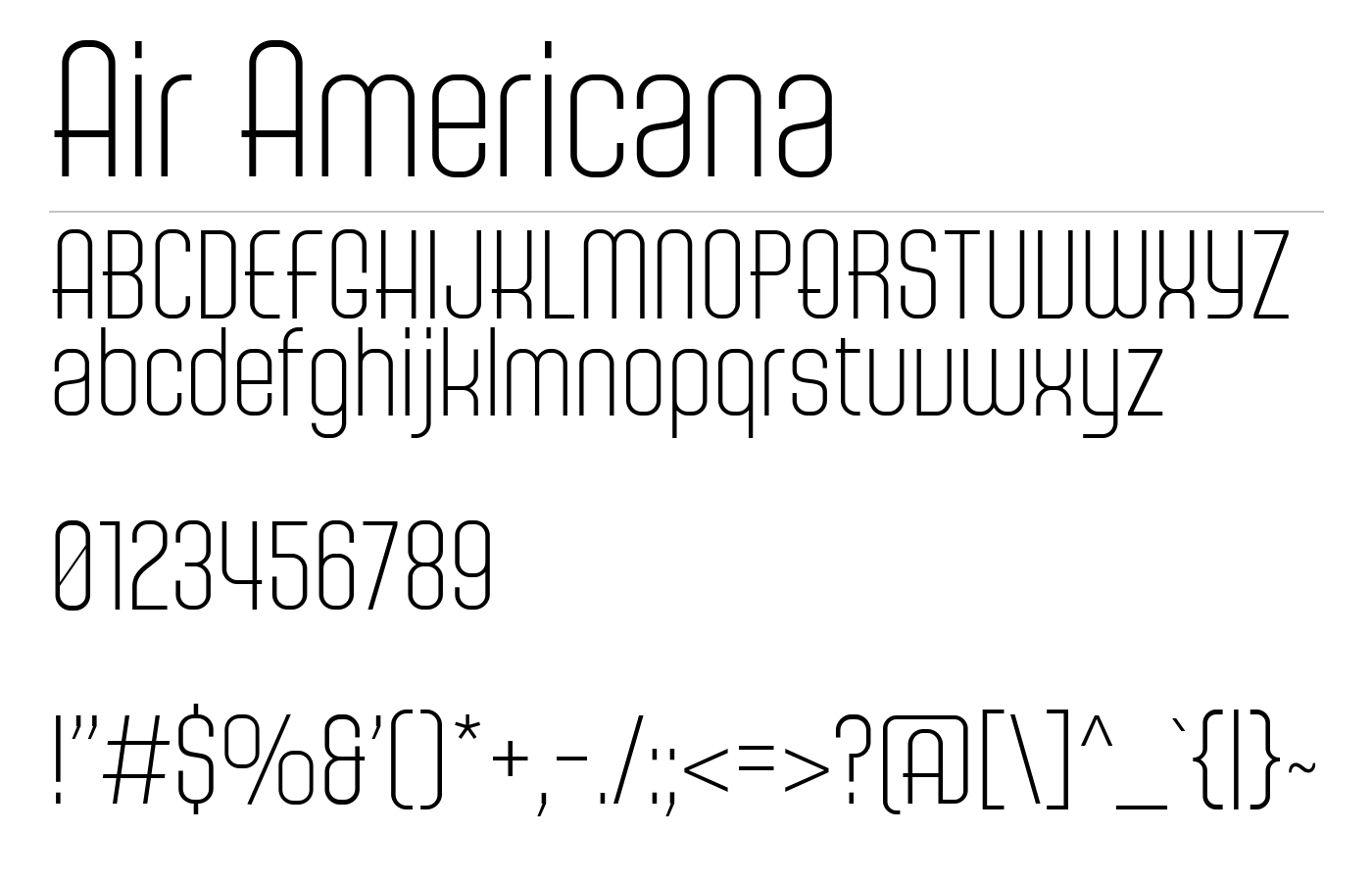
Air Americana is a slender, modern sans serif font characterized by its tall, narrow letterforms and consistent thin strokes, giving it an elegant and airy appearance. Its geometric shapes combined with subtle curves create a contemporary and sophisticated feel, making it ideal for clean, minimalist designs, fashion branding, and editorial headlines where a refined yet distinctive look is desired.
Air Americana Font
About Air Americana Font
| Designer | Tiago Sá |